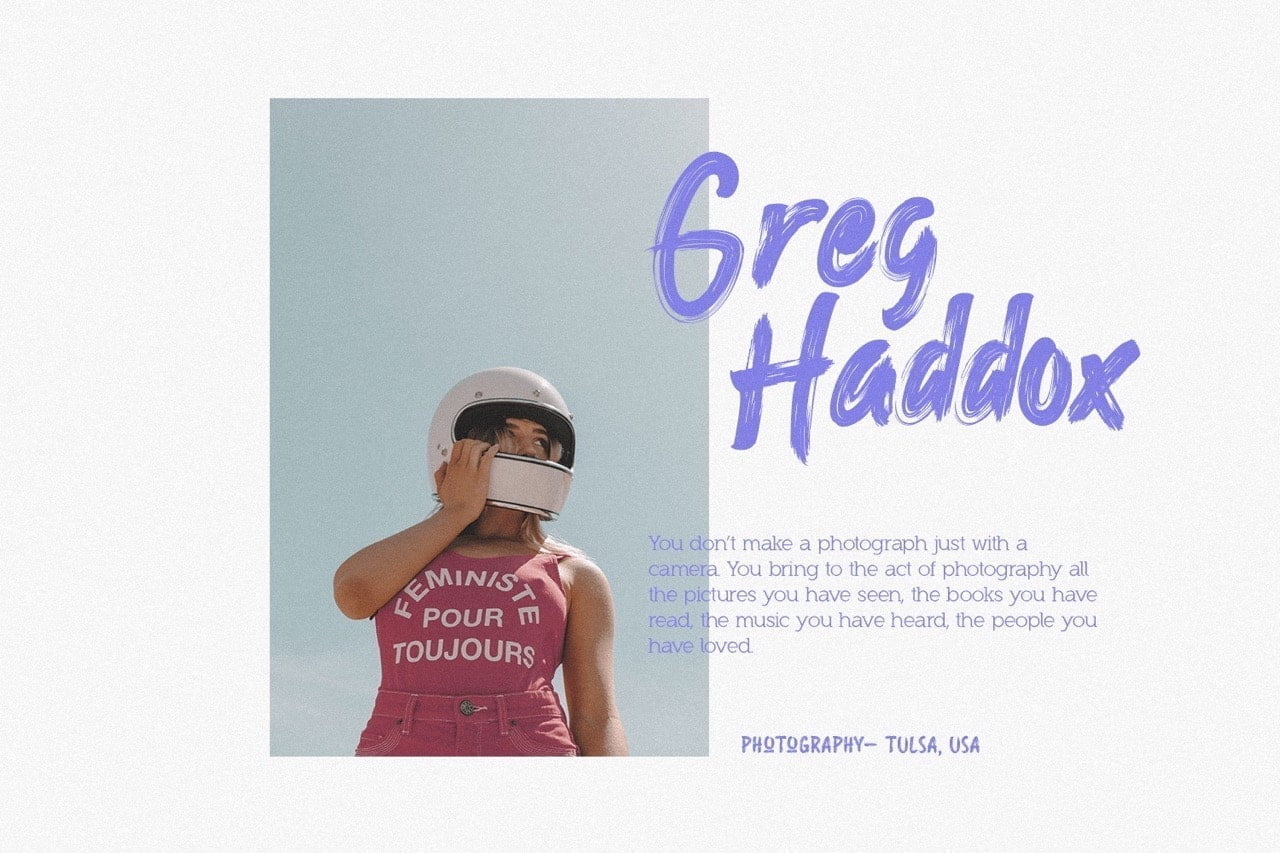
DeTeach is a stylish brush font that lets you create beautiful text effects and layouts. The design features a level of detail that makes the paint appear almost dry and gives it a real oil-painting look, while still retaining its fluid motion.
• 2 Styles (Regular and Caps)
• Basic Latin A-Z and a-z
• Numerals & Punctuation
• Stylistic Ligatures and Alternate Glyphs
• Multilingual Support for ä ö ü Ä Ö Ü …
DeTeach Brush Font